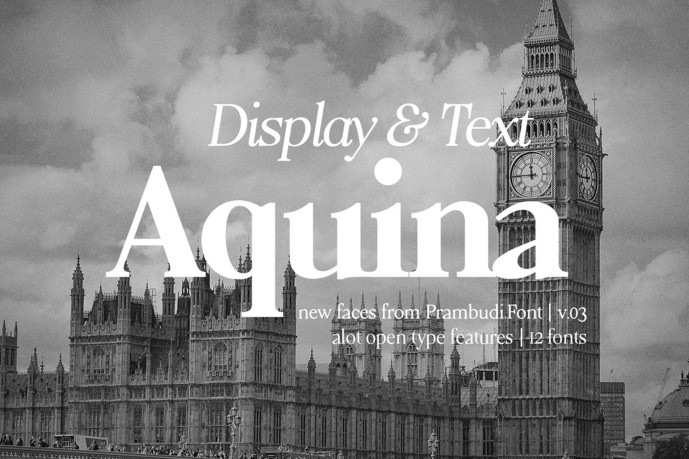
Aquina Serif Font
Aquinas Serif Font sounds like a beautiful typeface! Its blend of old-style serifs and calligraphic inspiration must give it a timeless and elegant feel, perfect for both body text and headings. The calligraphic sense likely adds a touch of warmth and personality to the characters, making it engaging and easy to read even in longer passages. It sounds like a versatile choice for various design projects, from traditional to contemporary contexts.
Feature List:
Uppercase, Lowercase, & Smallcaps Lining figures (Proportional & Tabular), Oldstyle figures (Proportional & Tabular), numerator & denominator, fraction, Ordinals, Superior, Inferior. Symbols & Punctuation. Ligatures Stylistic Sets -Dingbats